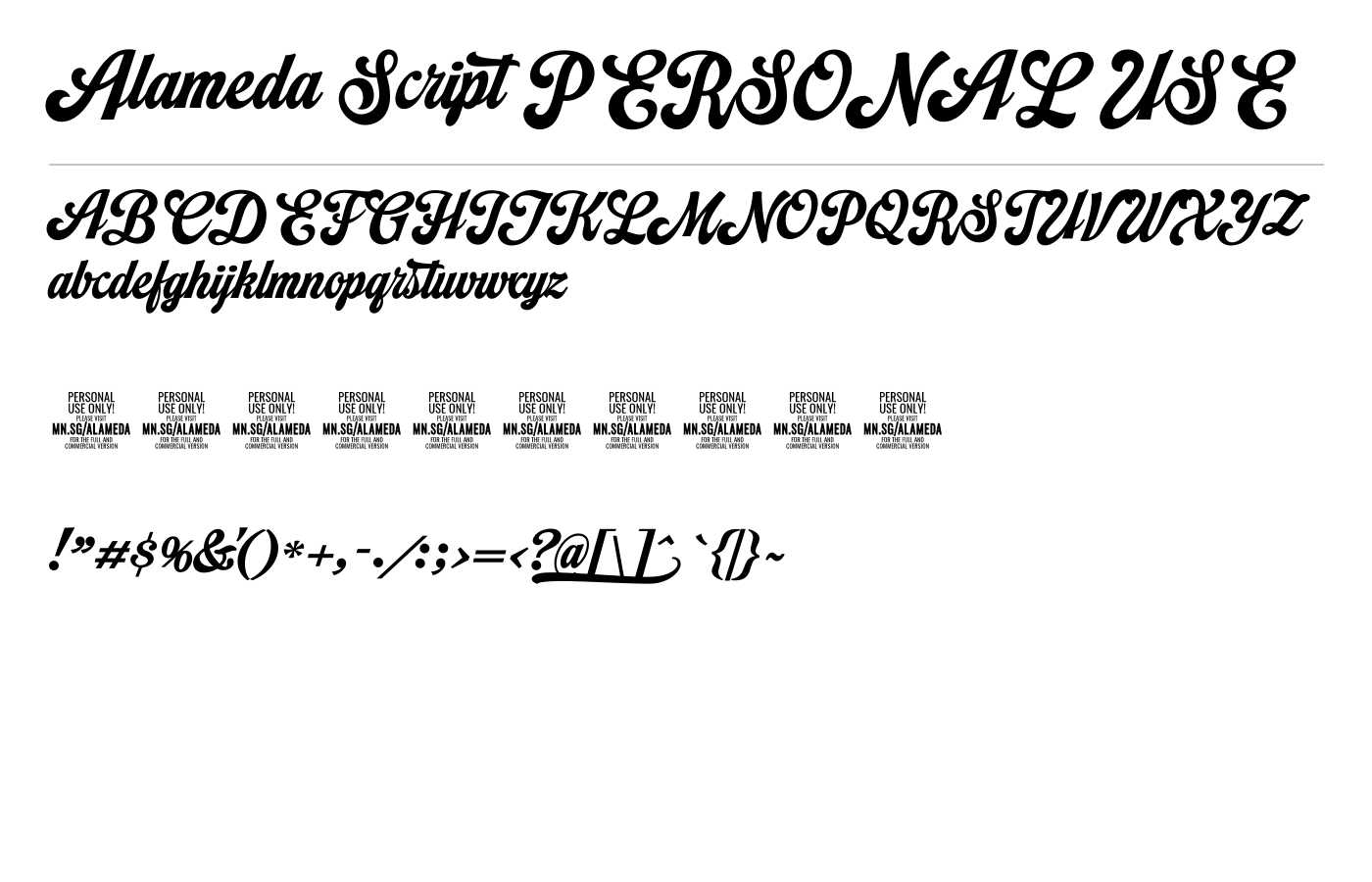
Alameda Script is a bold, elegant script font with a strong calligraphic flair, featuring thick, flowing strokes and pronounced curls that create a vintage and decorative feel. Its high contrast and smoothly connected letterforms lend a luxurious and stylish personality, making it ideal for logos, invitations, and branding that seek to convey sophistication and charm. This font works best in display settings where its unique curves and ornamental details can shine.
Alameda Script PERSONAL USE Font
About Alameda Script PERSONAL USE Font